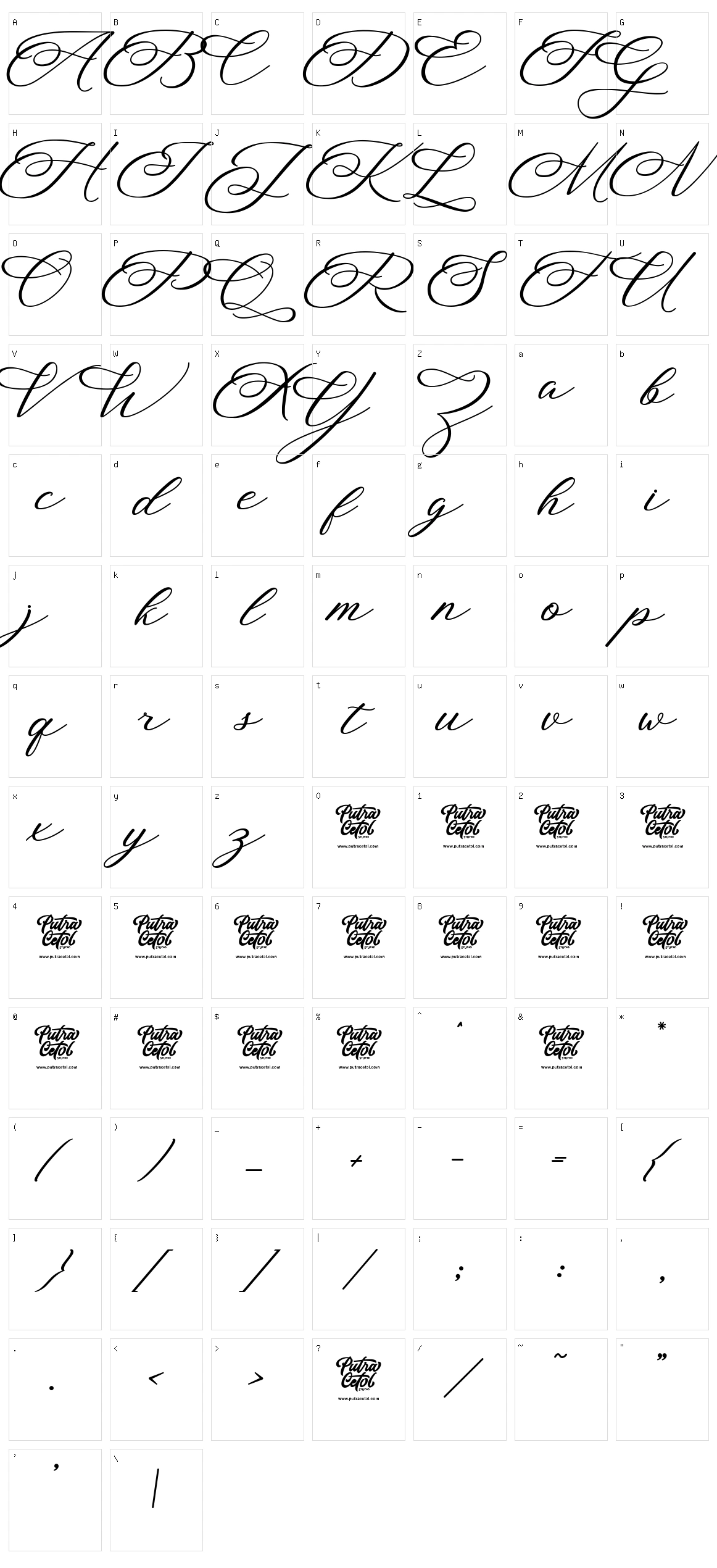
The free font Blossom Heart is carefully designed by PutraCetol Studio, showcasing a thoughtful balance of creativity and usability and falls under the Script font style. When you download the ZIP file, it contains only 826.95 KB of font files, making it lightweight and quick to download. Please review the license details below to understand permitted usage and distribution rights. If license information is not available, we recommend using this font for personal projects only or contacting the author directly for commercial usage permissions.